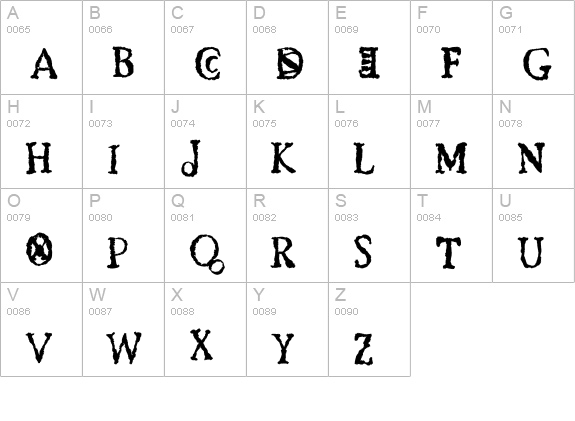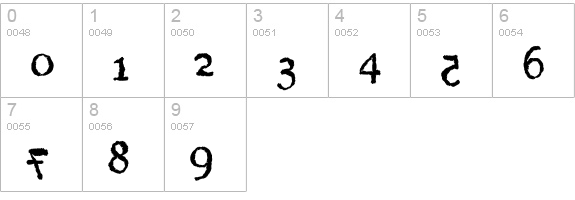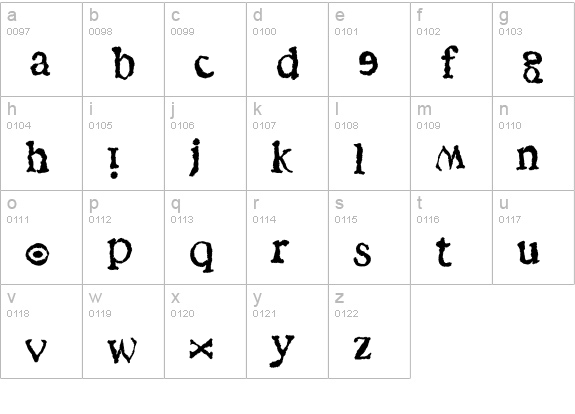
VTEbola Reston Font Details
Introducing VTEbola Reston font, a captivating and versatile typeface that seamlessly blends sophistication and modernity. This unique font, with its stylish curves and elegant strokes, is sure to elevate any design project to new heights of visual appeal. VTEbola Reston font is the epitome of creativity and innovation, offering a perfect balance between legibility and artistic flair. Whether used in headlines, logos, or body text, this font effortlessly captures attention and leaves a lasting impression on viewers. One of the standout features of VTEbola Reston font is its extraordinary versatility. It is equally suitable for both print and digital applications, making it a go-to choice for graphic designers, web developers, and creative professionals alike. With its wide range of weights and styles, this font can adapt to any design concept, from bold and impactful to subtle and refined. Furthermore, what sets VTEbola Reston font apart is that it is freely available to download at FontsMarket.com. This means that you can experience the sheer beauty and versatility of this font without any limitations. Whether you are a seasoned designer or an aspiring beginner, this free font offers you the opportunity to explore and experiment to your heart's content. In conclusion, VTEbola Reston font is a captivating and versatile typeface that effortlessly combines sophistication and modernity. Its unique design, coupled with its extraordinary versatility, makes it an essential tool in any designer's arsenal. And the best part? It is freely available to download at FontsMarket.com, allowing you to unleash your creativity without any constraints. So, why wait? Discover the endless possibilities with VTEbola Reston font today!